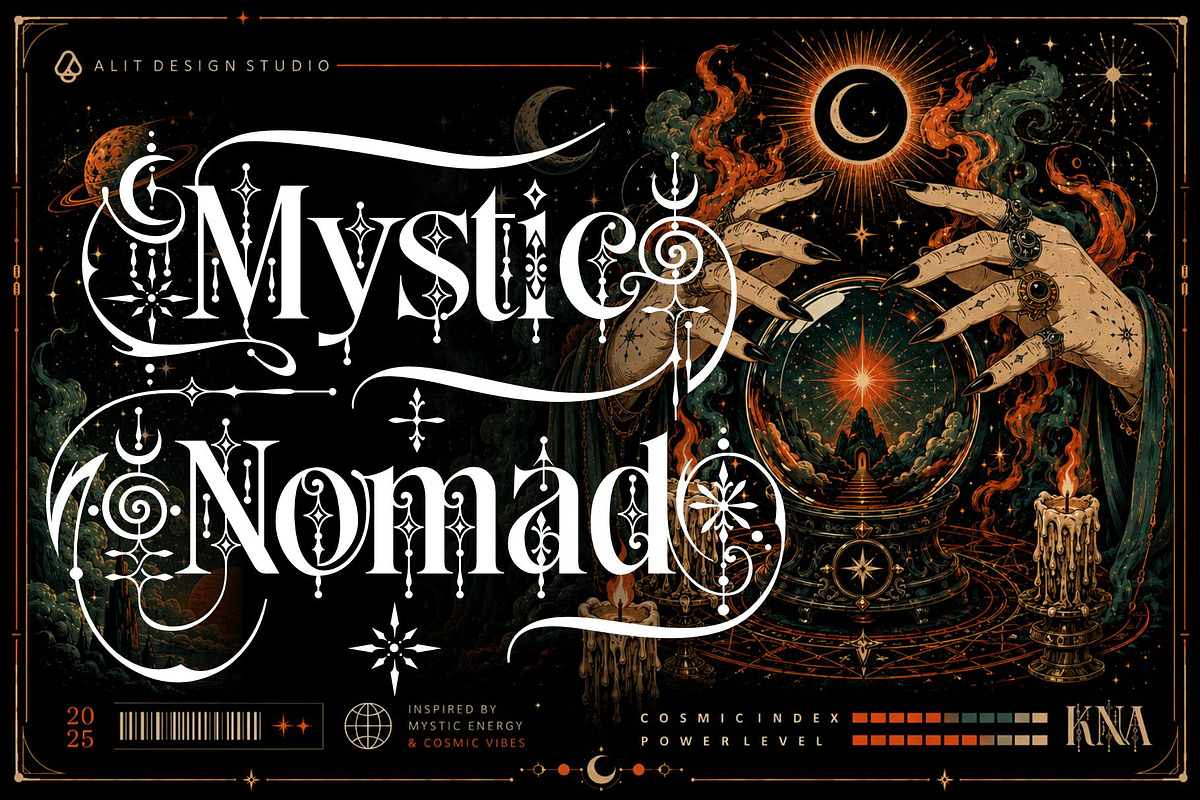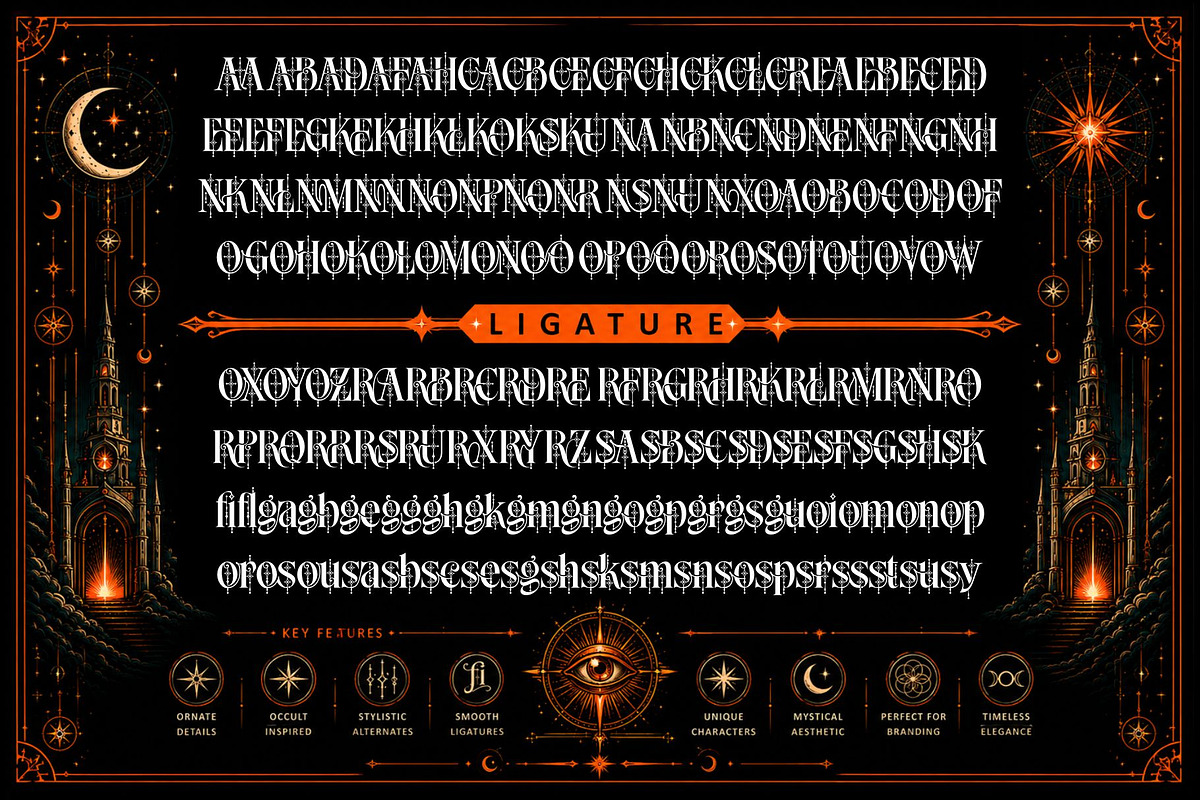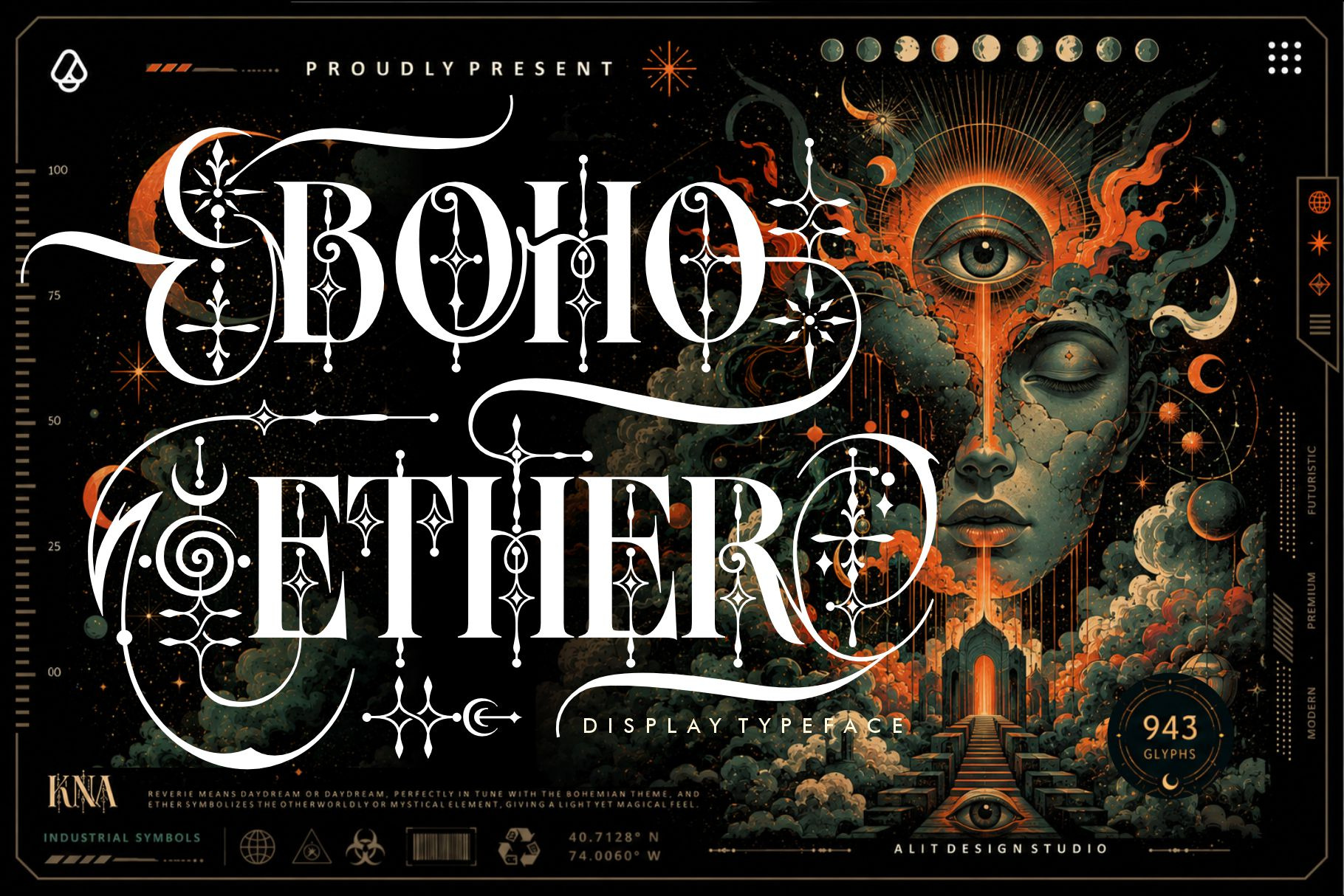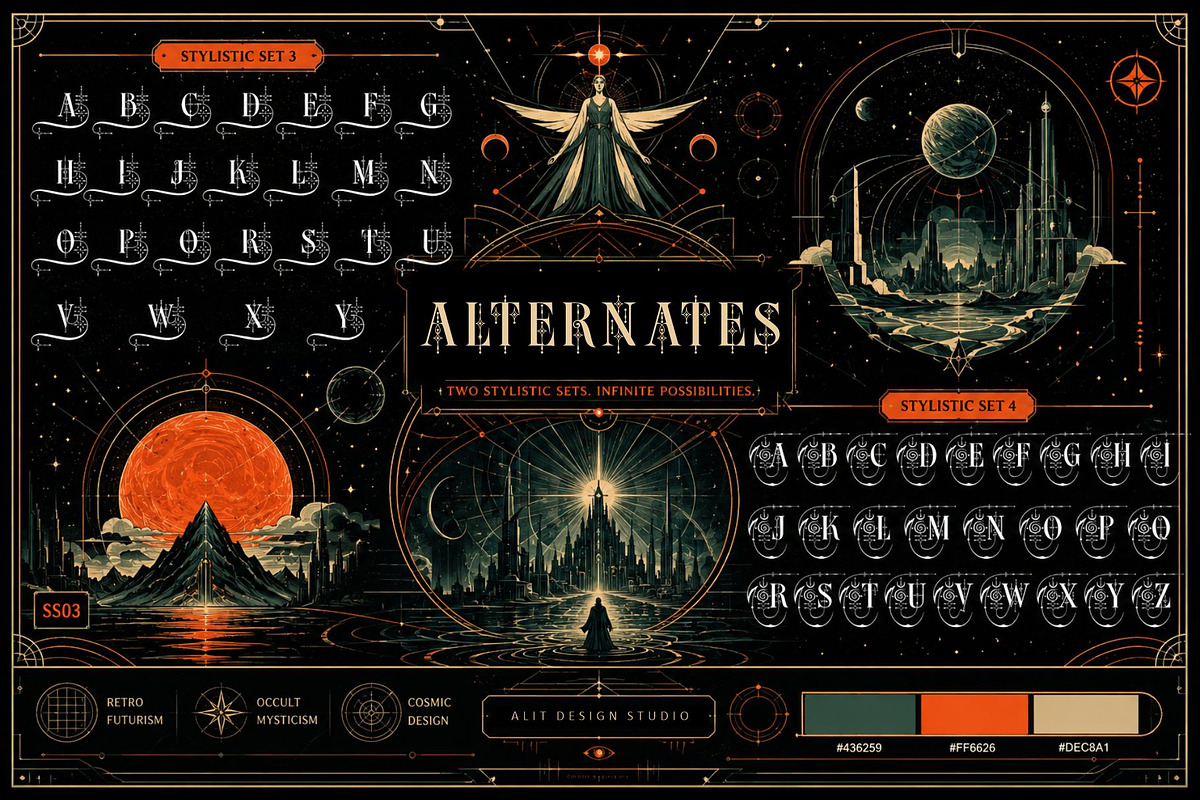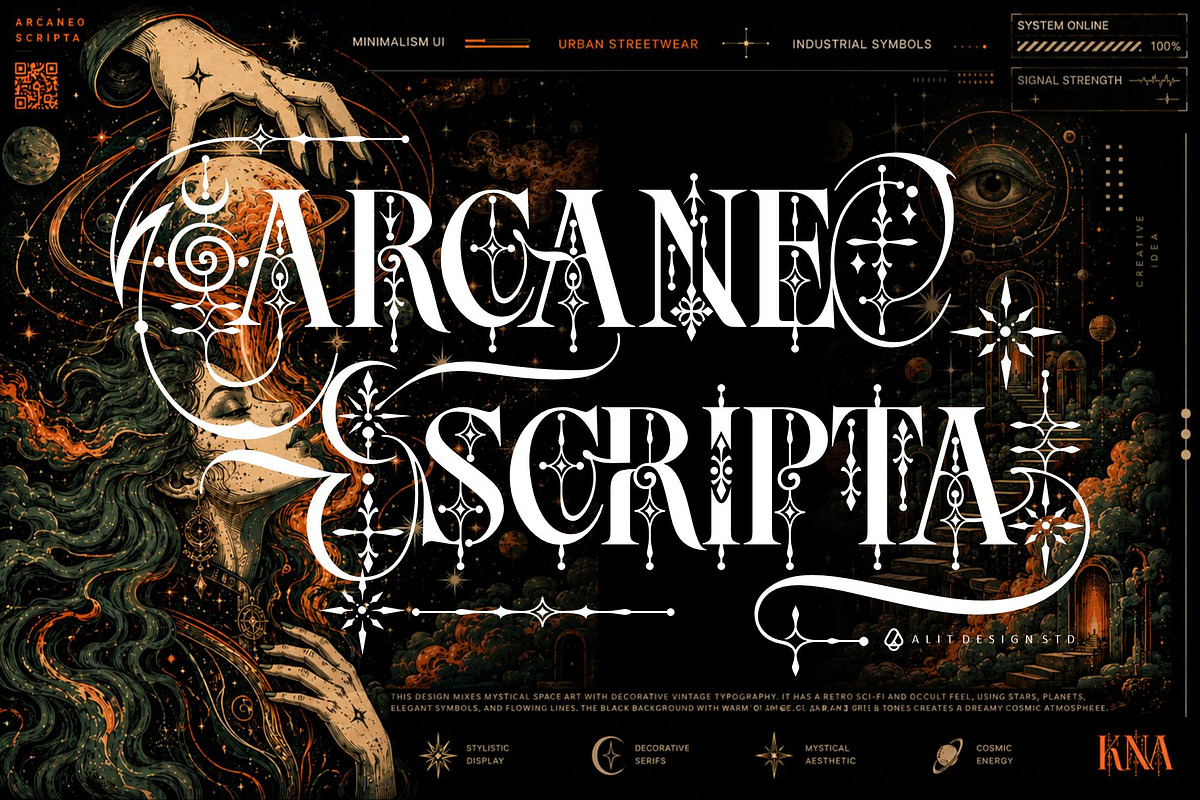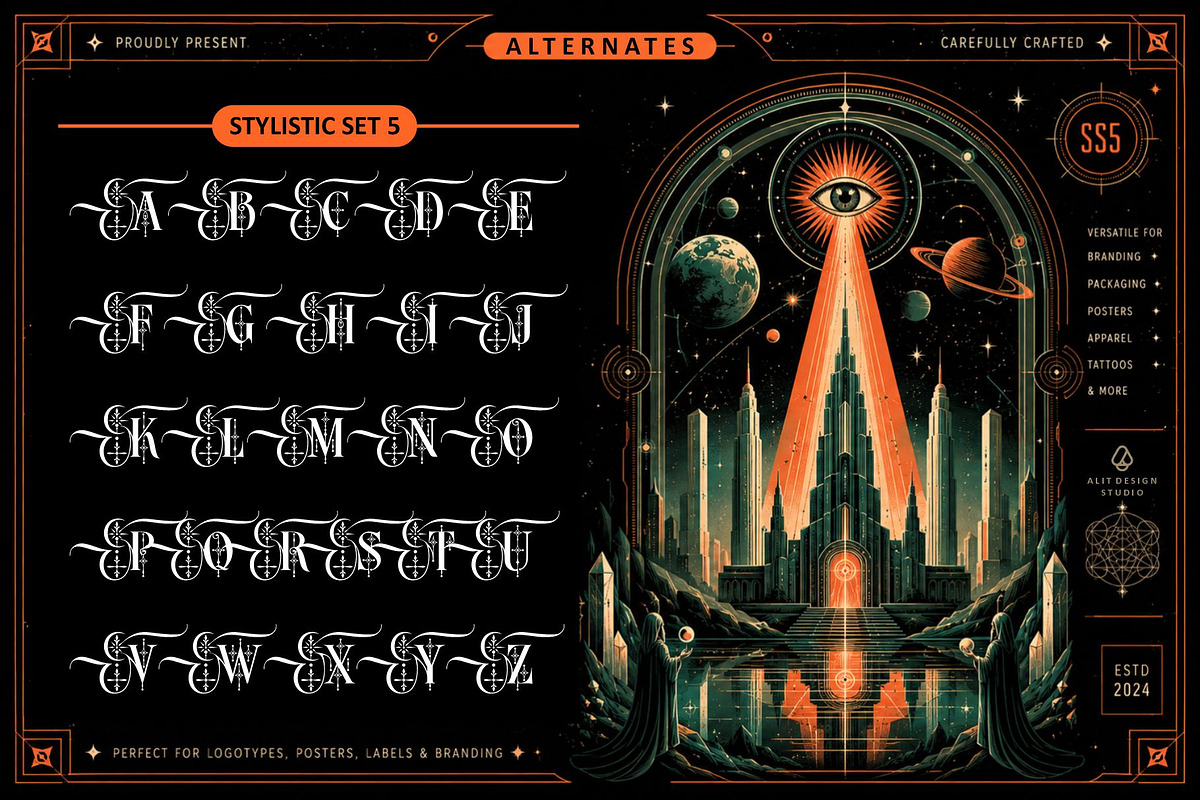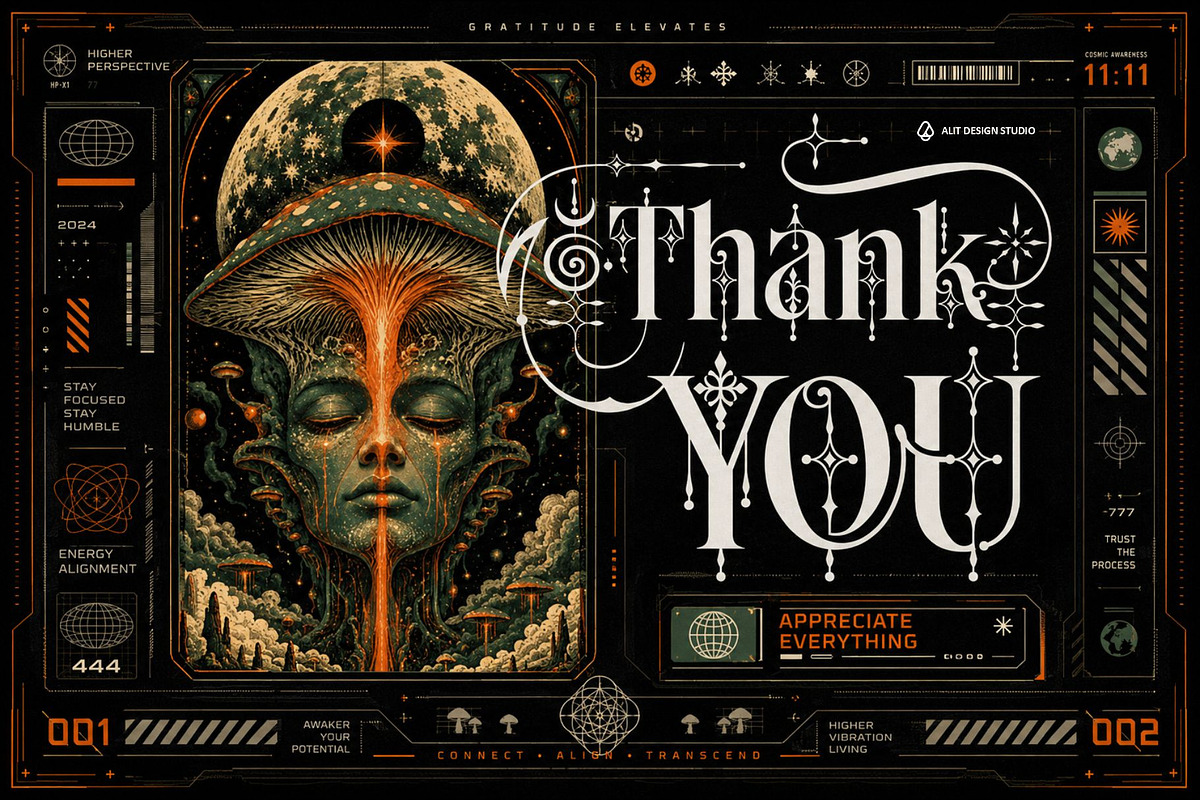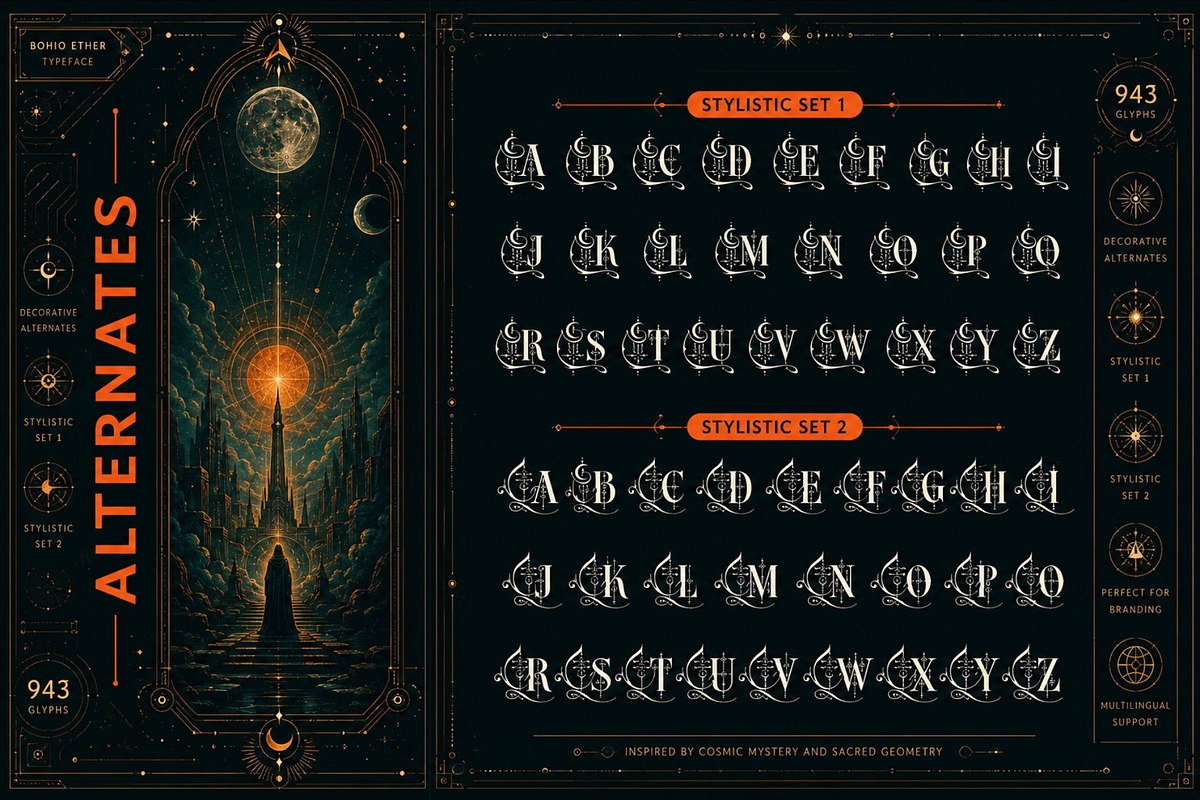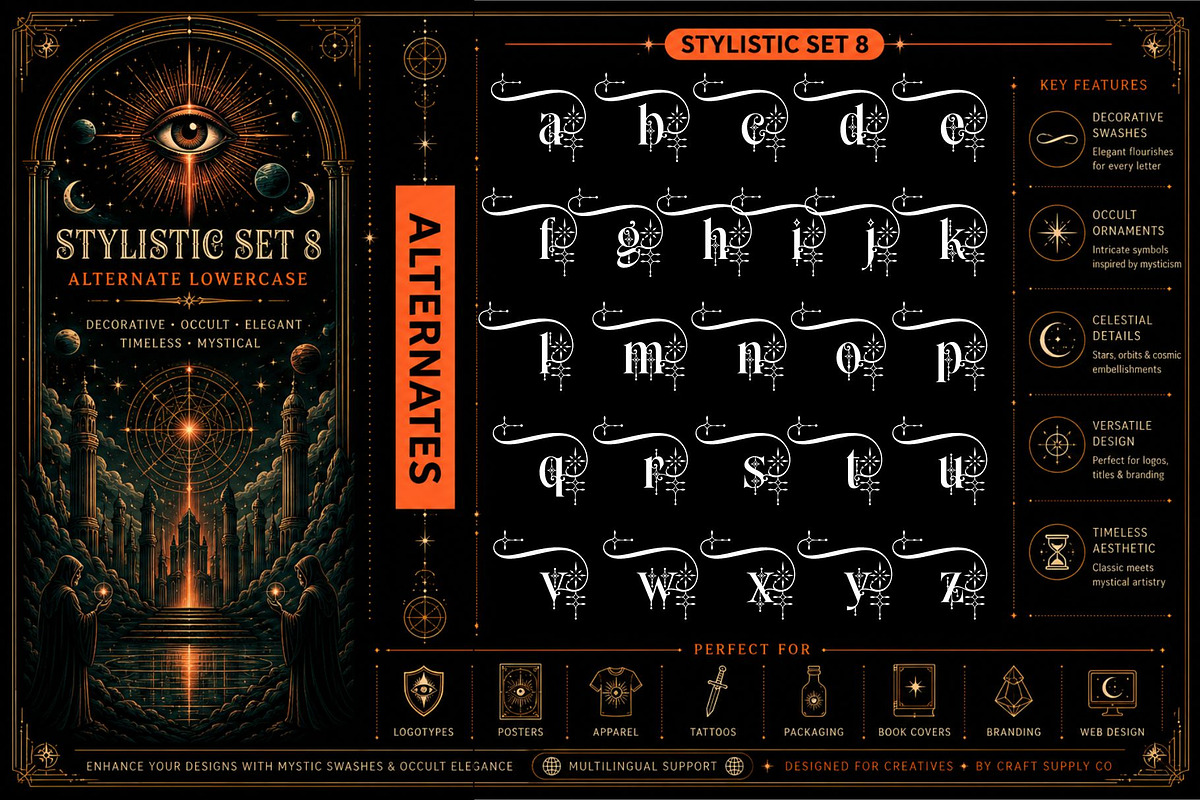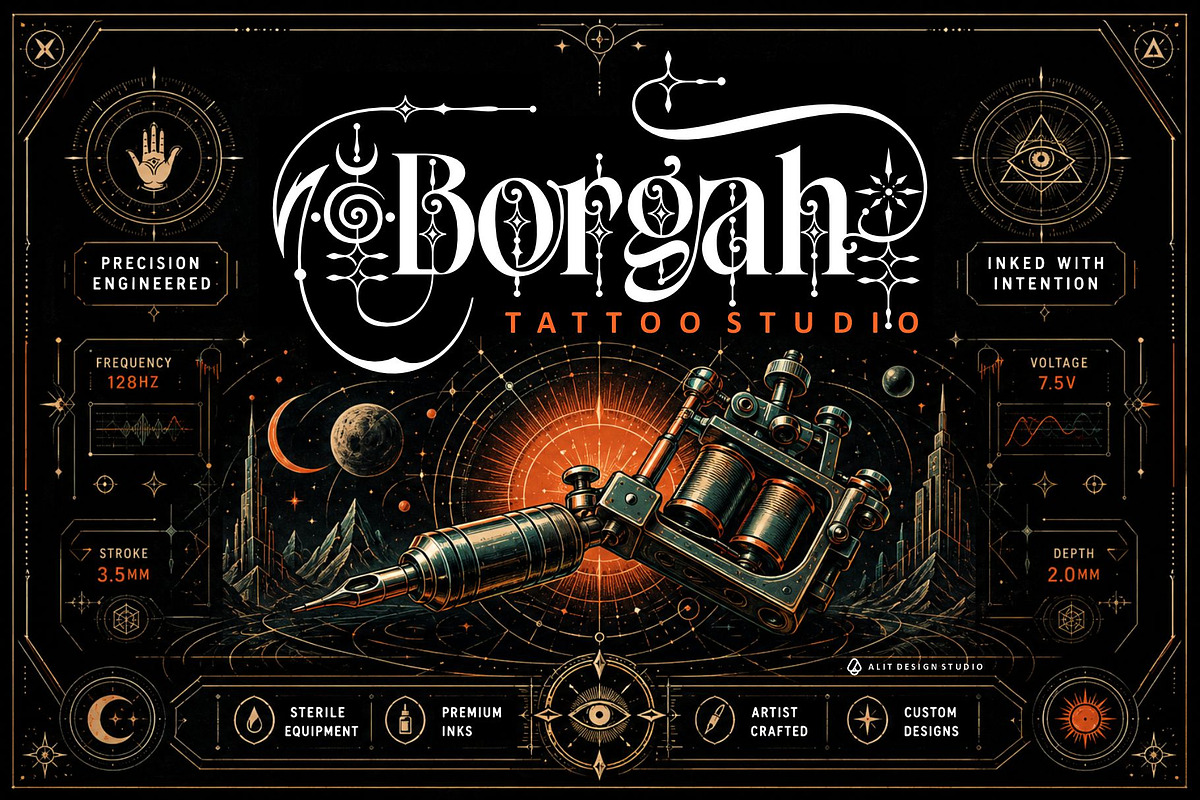
Boho Ether Typeface
Discover Boho Ether, a beautifully crafted typeface that effortlessly blends bohemian free-spiritedness with ethereal elegance. Designed for creatives who demand both versatility and premium style, this font is the perfect choice for making your designs stand out with a touch of sophisticated, organic charm.
With an incredible collection of 943 glyphs, Boho Ether provides endless creative possibilities. It comes fully equipped with a vast range of Alternate characters (ranging from SS01 to SS07) and beautifully curated Ligatures. This allows designers to play with typography, creating custom, fluid, and highly unique typographic compositions that feel bespoke.
Whether you are designing high-end branding, elegant wedding invitations, aesthetic editorial spreads, or captivating social media graphics, Boho Ether adapts seamlessly to bring your creative vision to life.
943 Total Glyphs: A massive library of characters for ultimate customization and typographic freedom.
Extensive Stylistic Sets (SS01 - SS07): Multiple beautiful alternate styles to give your designs a custom feel.
Beautiful Ligatures: Crafted for smooth, elegant, and natural letter connections.
Complete Character Set: Uppercase, Lowercase, Numerals, and comprehensive Punctuation/Symbols.
Multilingual Support: Broad language compatibility to reach a global audience.
Premium Branding & Logo Design
Wedding Invitations & Fine Stationery
Editorial Design & Magazine Layouts
Product Packaging & Boutique Labels
Social Media Quotes & Aesthetic Posts
Website Headers & Hero Typography